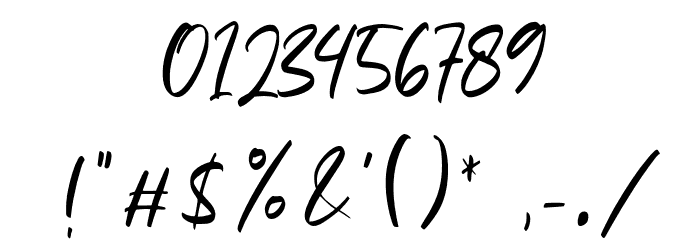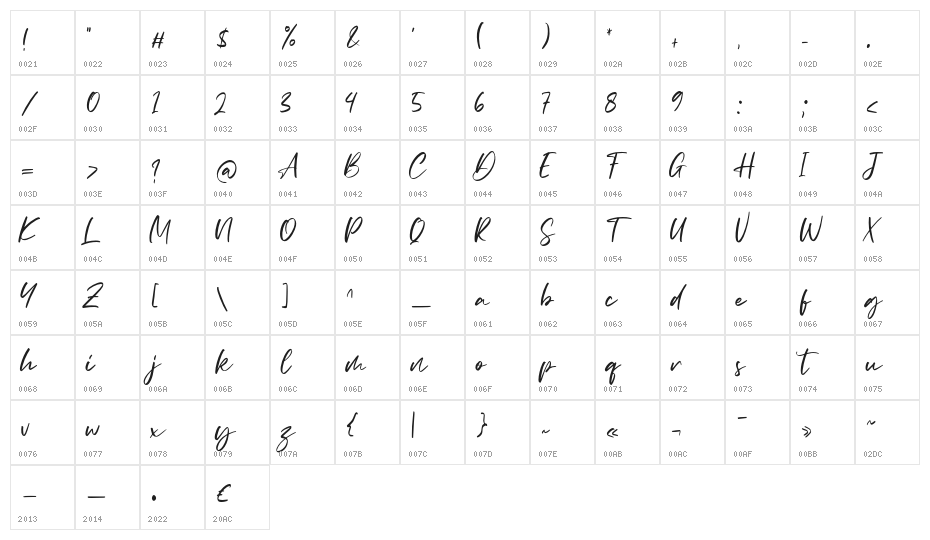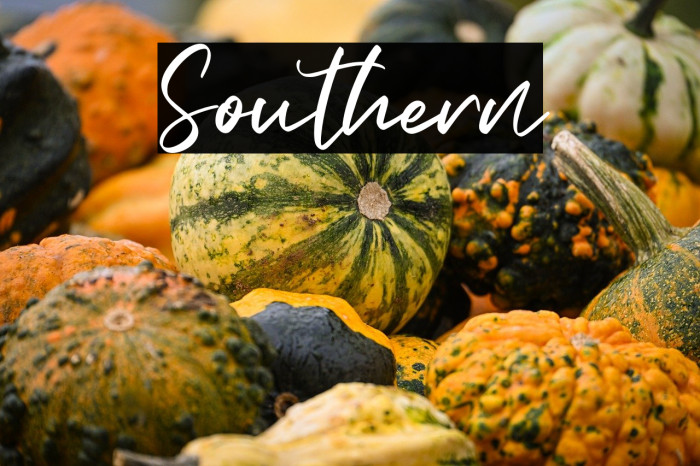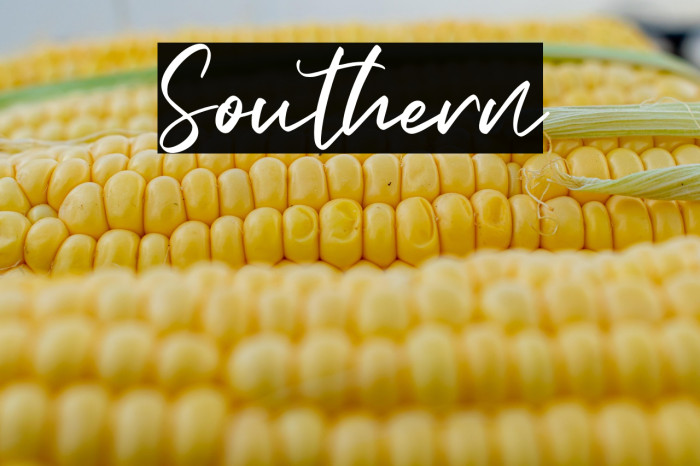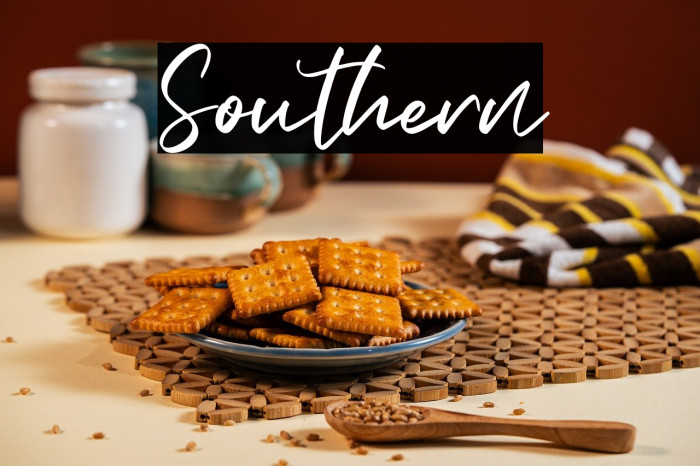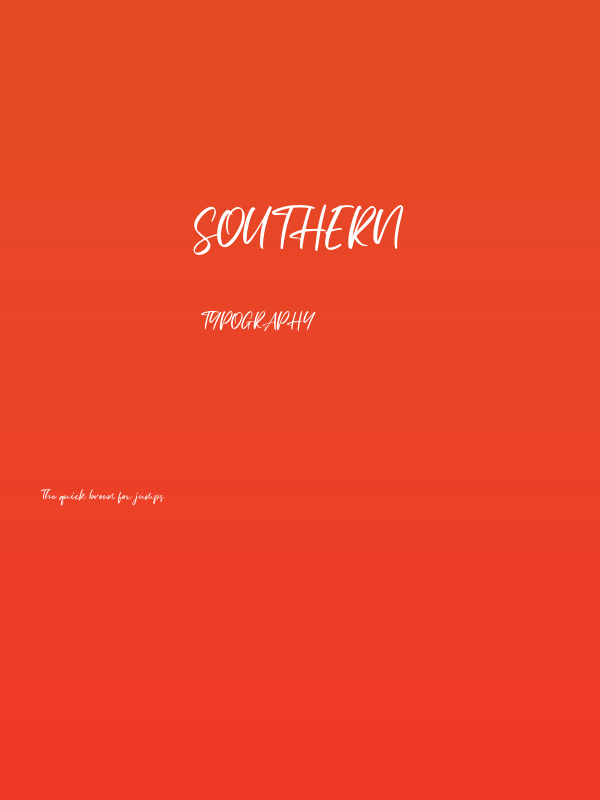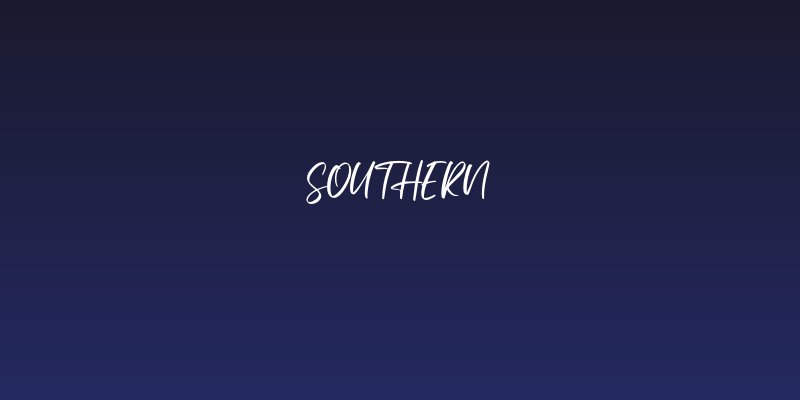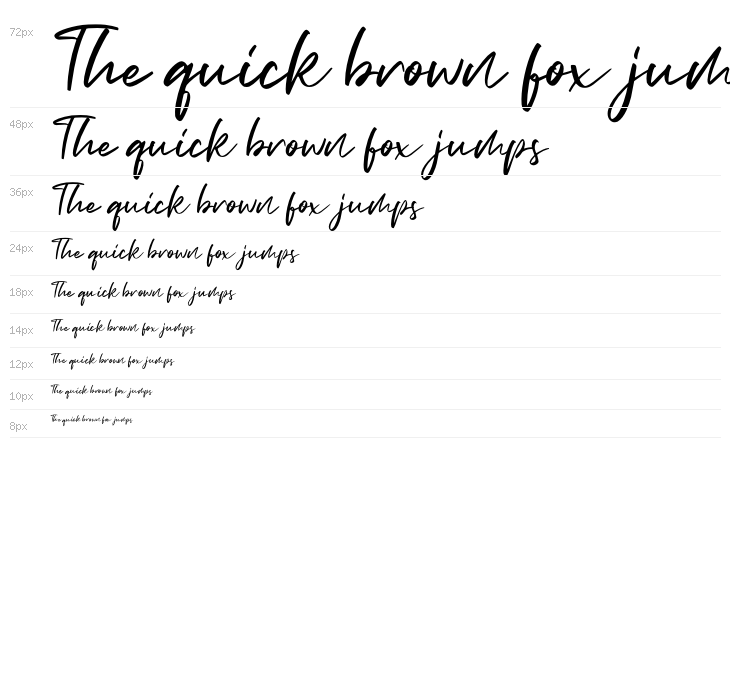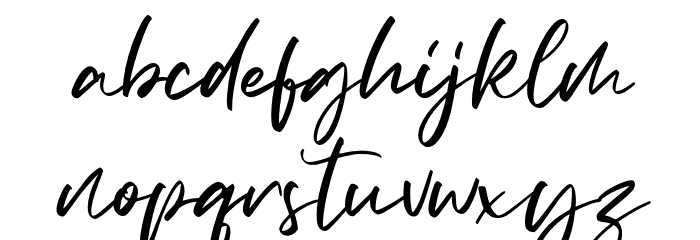
Southern Font
Southern Description
This font exudes a lively and expressive character with its handwritten style. The letters are crafted with a fluid motion, giving a sense of personal touch and creativity. The uppercase letters are bold and dynamic, while the lowercase letters maintain a consistent flow, enhancing readability. Numbers and special characters are designed to match the overall aesthetic, ensuring a cohesive look. The strokes vary in thickness, adding a natural and organic feel to the text. This font is perfect for projects that require a personal and artistic touch.